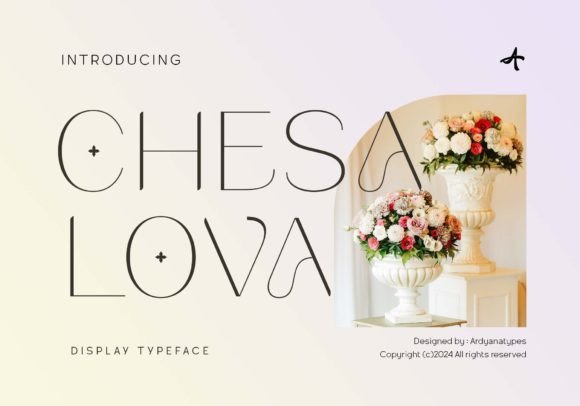
Discover the Elegance of Chesalova Font: A Minimalist Typeface for Modern Designs
In the realm of typography, the right font can elevate a design from ordinary to extraordinary. Among the myriad of typefaces available, Chesalova Font stands out for its unique blend of simplicity and creativity. This article delves into the world of Chesalova, exploring its design philosophy, features, and applications, making it an essential read for designers and typography enthusiasts alike.
What is Chesalova Font?
Chesalova is a distinctive typeface characterized by its highly minimalist appearance. The primary focus of its design is simplicity and uniqueness, making it an excellent choice for projects where clarity and elegance are paramount. Despite its minimalist design, Chesalova offers a high degree of readability, ensuring that it can be effectively used in a wide range of applications, from digital interfaces to print materials.
The Design Philosophy Behind Chesalova
The design of Chesalova is rooted in the philosophy that simplicity is the ultimate form of sophistication. Each letterform is crafted with precision, ensuring that the font remains clean and uncluttered. This minimalist approach not only enhances readability but also provides a versatile canvas for designers to express their creativity.
Chesalova’s design team aimed to create a typeface that would be both unique and functional. By focusing on simplicity, they ensured that Chesalova could be seamlessly integrated into various design contexts, from editorial and advertising to digital and web design.
Exploring OpenType Features
One of the standout features of Chesalova Font is its support for OpenType features. This allows users to add creative touches to their designs, providing exciting and diverse options for typographic expression. OpenType features include:
- Stylistic Sets: Offering variations of letterforms that can be used to create a more personalized look.
- Ligatures: Replacing common letter combinations with a single glyph, enhancing the flow of text.
- Alternates: Providing users with alternative forms of letters and numbers to add variety to their text.
These features enable designers to experiment with different styles and effects, making Chesalova a versatile tool for creative projects.
Applications and Usability of Chesalova Font
The versatility of Chesalova Font makes it suitable for a wide range of applications. Its minimalist design ensures that it can be used in:
- Digital Interfaces: Websites, mobile apps, and digital platforms benefit from Chesalova’s clean and readable design, enhancing user experience.
- Print Materials: From brochures and magazines to posters and business cards, Chesalova adds a touch of elegance and sophistication.
- Editorial and Advertising: Its unique and minimalist appearance makes Chesalova an excellent choice for headlines, titles, and short texts.
Chesalova’s broad applicability stems from its careful design, ensuring that it remains legible and aesthetically pleasing across different mediums and sizes.
Tips for Using Chesalova Effectively
To maximize the potential of Chesalova Font in your designs, consider the following tips:
- Experiment with Sizes: Chesalova’s minimalist design ensures that it remains legible at various sizes. Experiment with different sizes to find the perfect balance for your design.
- Utilize OpenType Features: Take full advantage of Chesalova’s OpenType features to add creativity and uniqueness to your typography.
- Pair with Complementary Fonts: While Chesalova can be used as a standalone font, pairing it with complementary fonts can enhance its versatility and create visual interest.
Chesalova Font is a testament to the power of minimalist design in typography. Its unique blend of simplicity, readability, and creative features makes it an invaluable tool for designers. Whether you’re working on a digital project, print material, or advertising campaign, Chesalova offers the elegance and versatility needed to elevate your design.
By incorporating Chesalova into your typographic arsenal, you’ll discover new possibilities for expressing your creativity and delivering impactful designs that stand out in a crowded visual landscape.